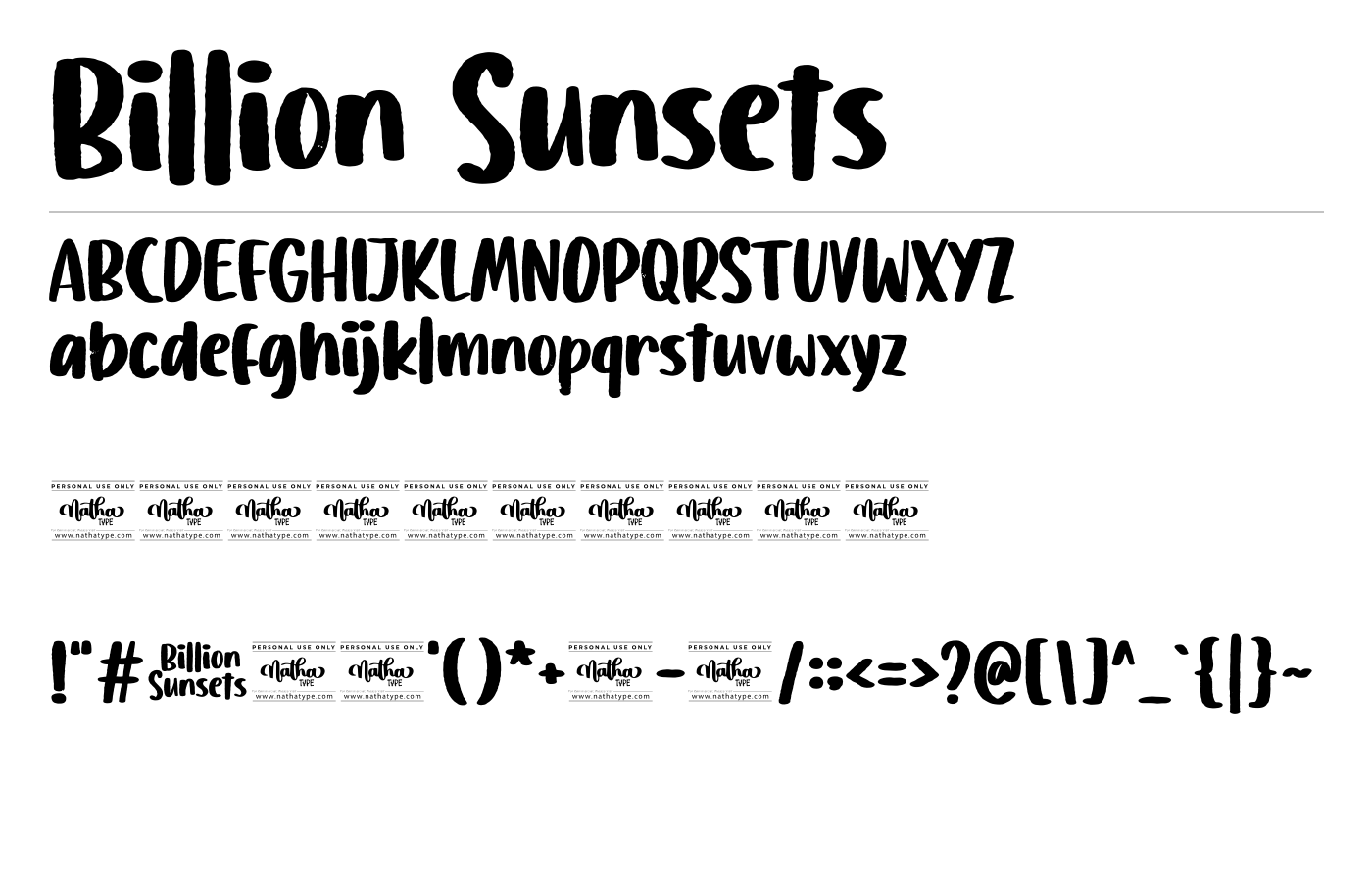
Billion Sunsets is a bold, hand-drawn sans serif font with a playful and organic feel. Its irregular strokes and slightly condensed letterforms give it a warm, casual personality, perfect for projects seeking a friendly and approachable vibe. This font works great for headlines, logos, packaging, and any design that benefits from a lively, handcrafted touch.
Billion Sunsets Font
About Billion Sunsets Font
| Font family | Billion Sunsets Font |